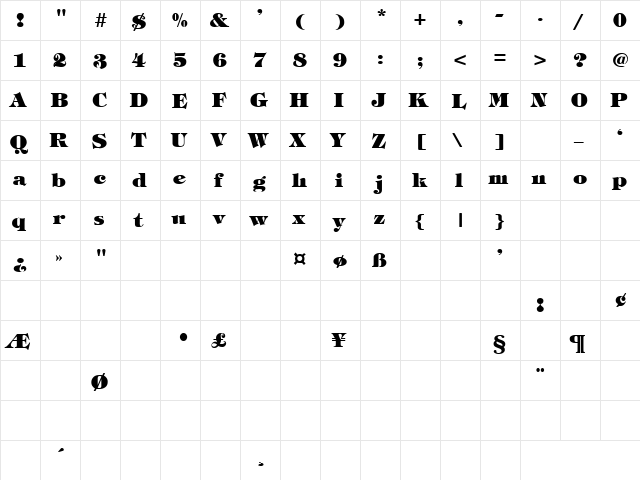
Tiffany-Heavy-Bold Regular
Design Context for Tiffany-Heavy-Bold Typeface
Tiffany-Heavy-Bold takes a measured approach to typography — its balanced proportions and neutral character make it a reliable workhorse for both digital and print work. The heavy weight commands attention and anchors typographic hierarchies.